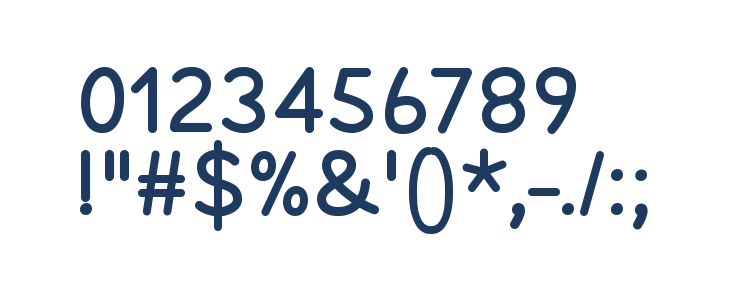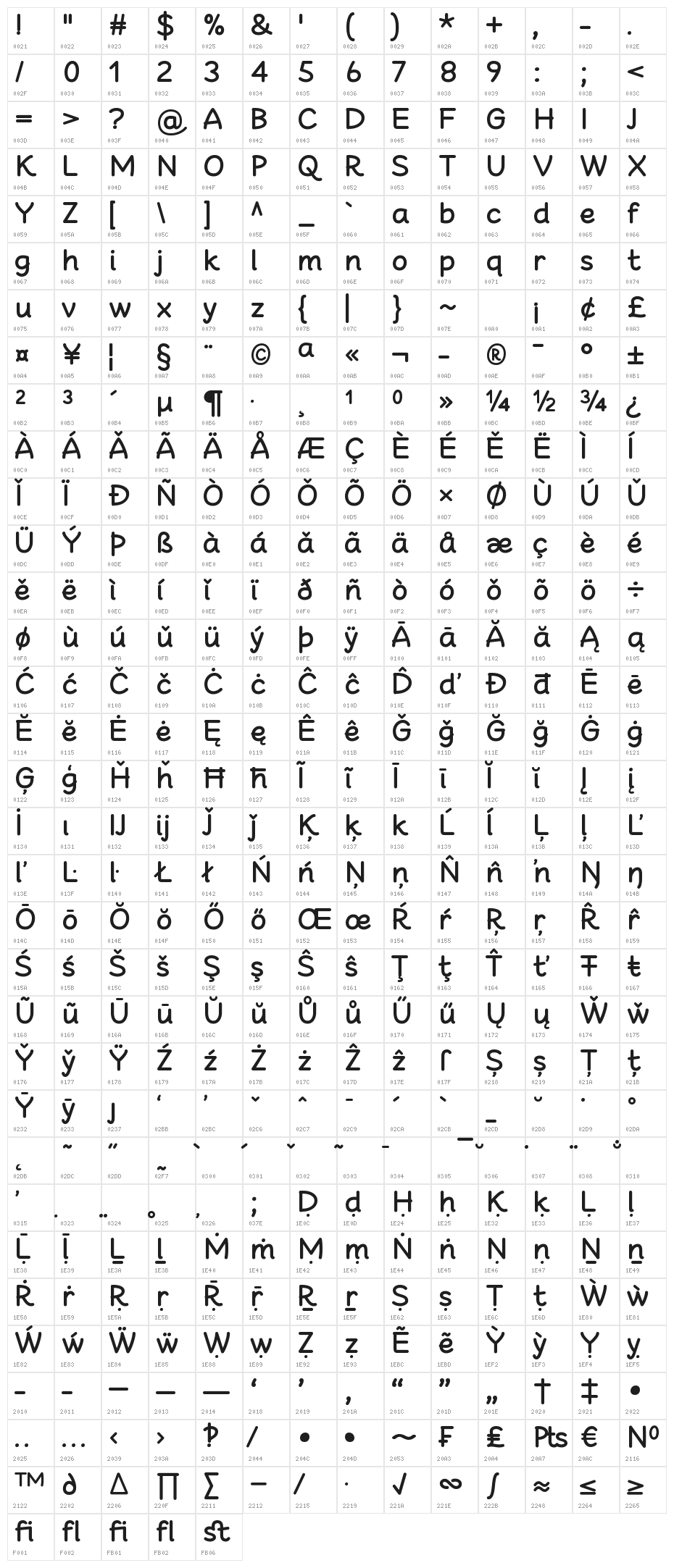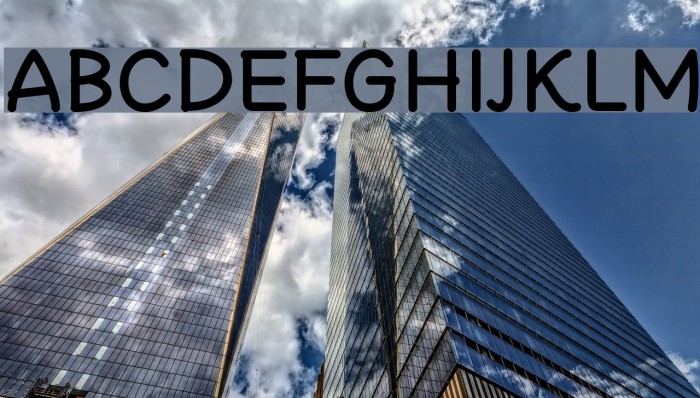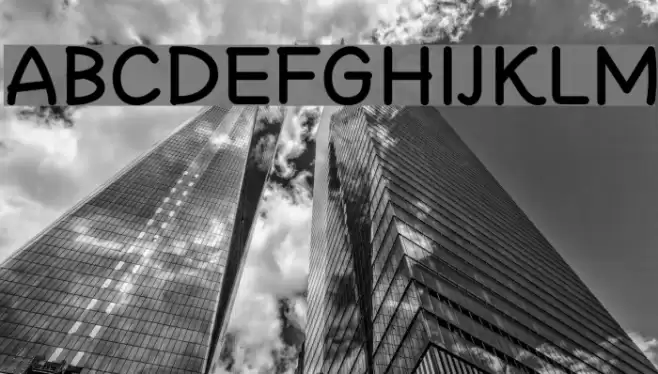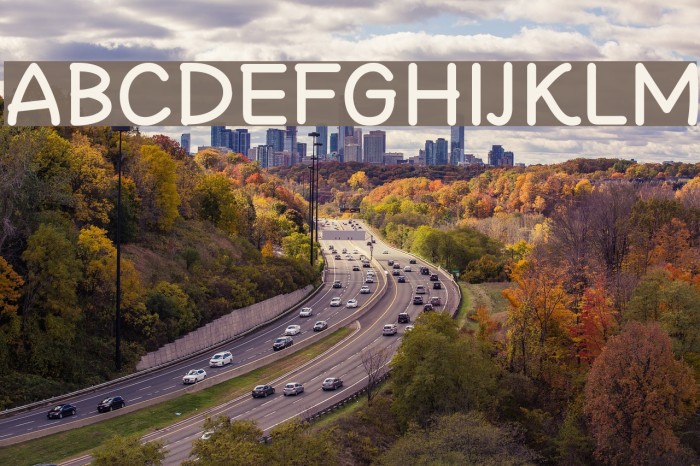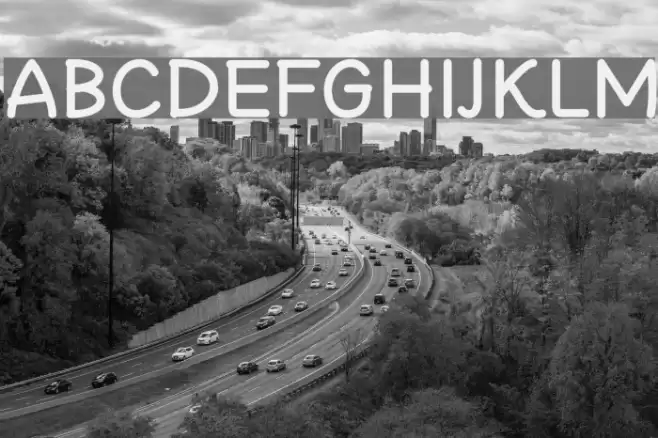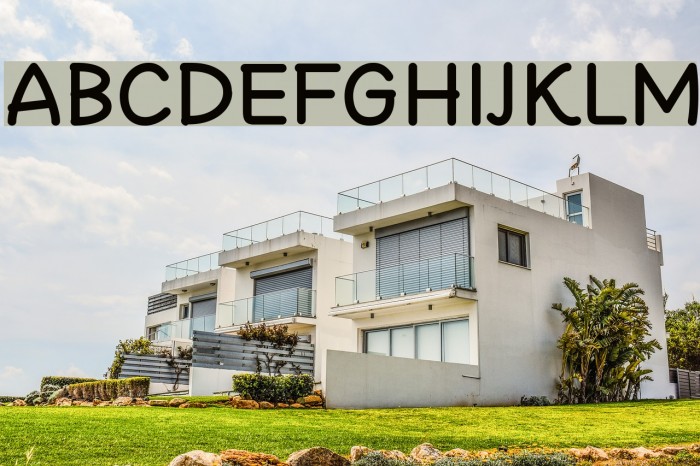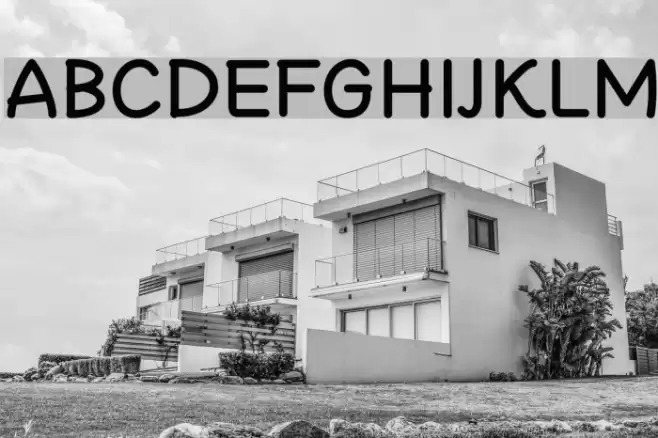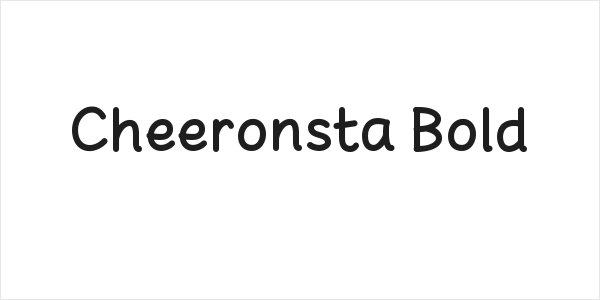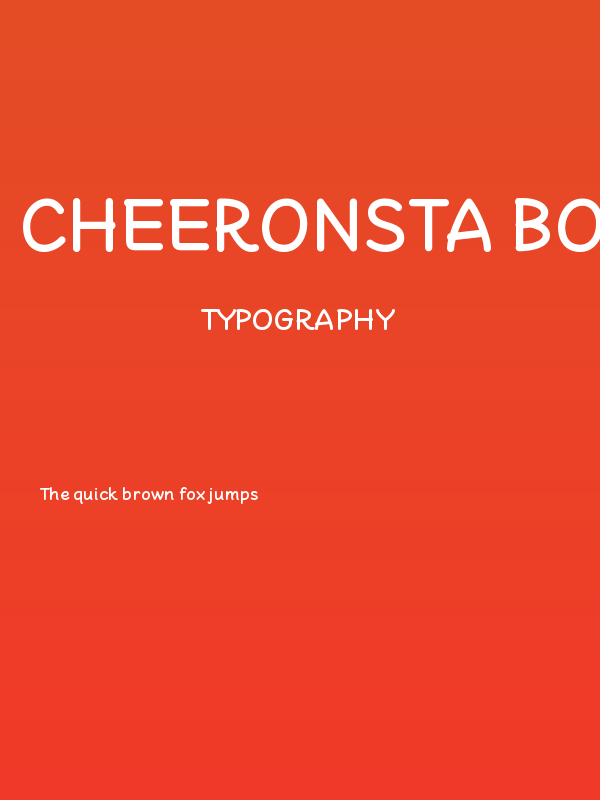
Cheeronsta Bold Font
Cheeronsta Bold Description
This font features a playful and rounded design, characterized by its smooth curves and friendly appearance. The letters are bold and have a consistent thickness throughout, giving it a strong presence. The rounded edges and uniform stroke width contribute to its approachable and modern look. The font maintains a balanced and harmonious structure, making it easy to read while retaining a unique personality. Its simplicity and clarity make it suitable for a variety of applications, from digital to print media.
| Use Case | Headlines, Logos, Casual Text |
| Proposed Projects | Ideal for children's books, playful branding, casual invitations, and social media graphics. |